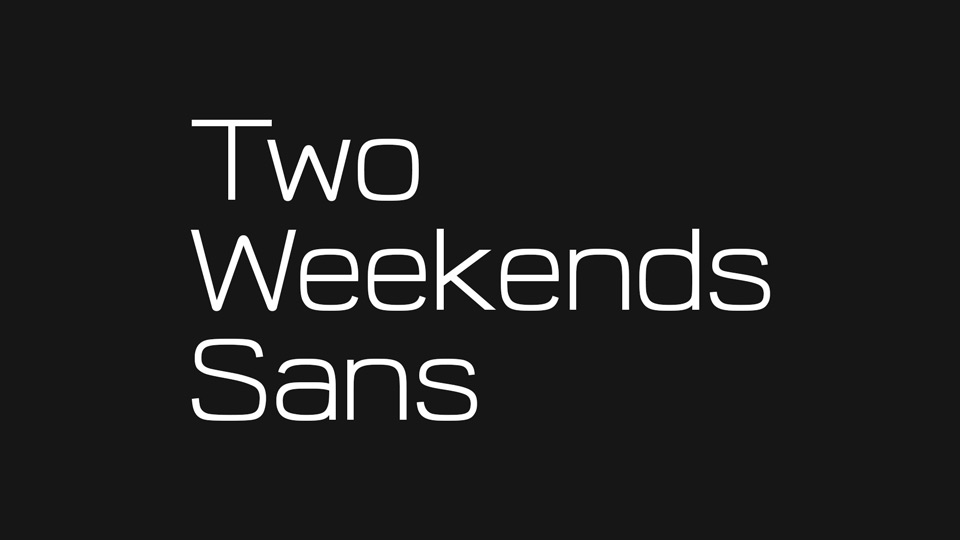
Download Two Weekends Sans font, a modern rectangular sans serif with round corners. Its rational technical look makes the font a perfect choice for visual identities, posters and display usage.